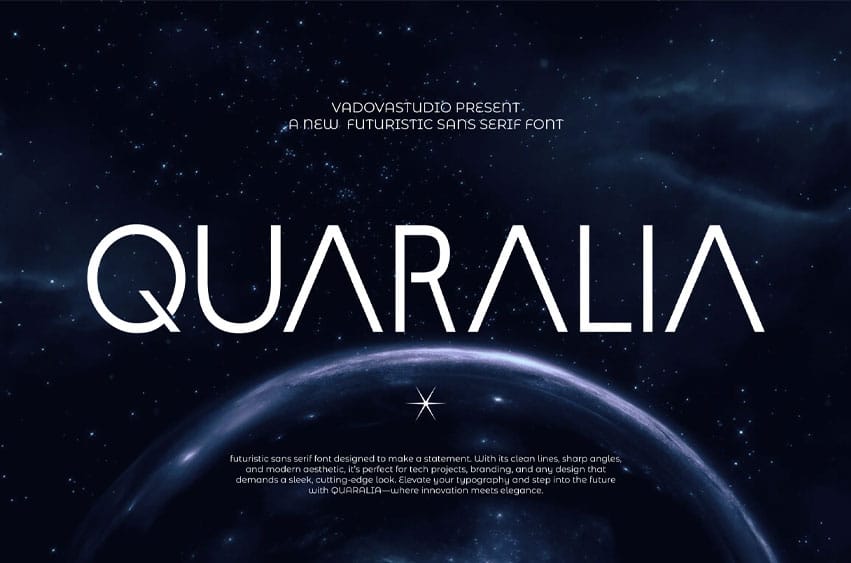
Quaralia Font Elevate your designs with Quaralia Futuristic Sans Serif*, a modern font perfect for adding elegance and style to your projects. Whether it’s for quotes, logotypes, magazine headers, or more, this versatile typeface ensures your text stands out beautifully.